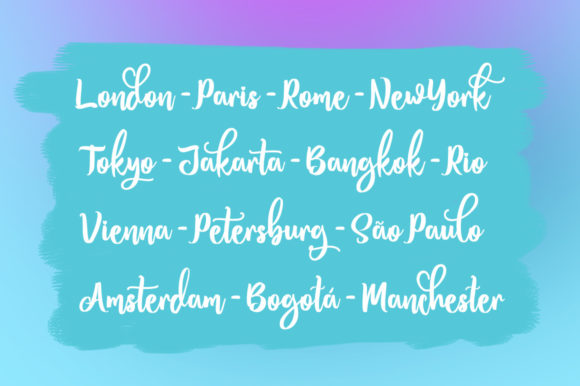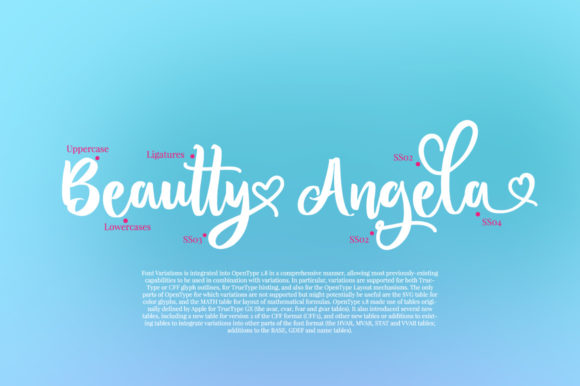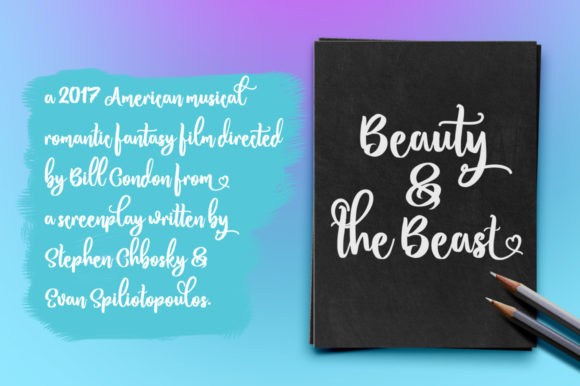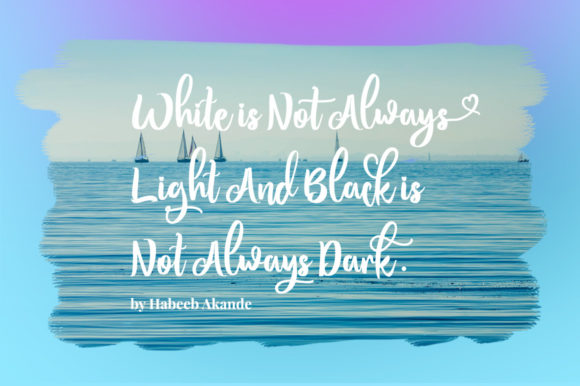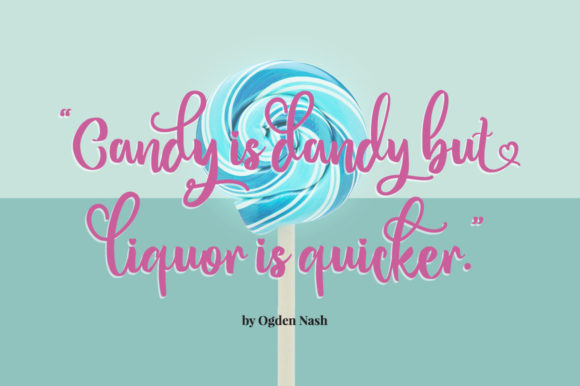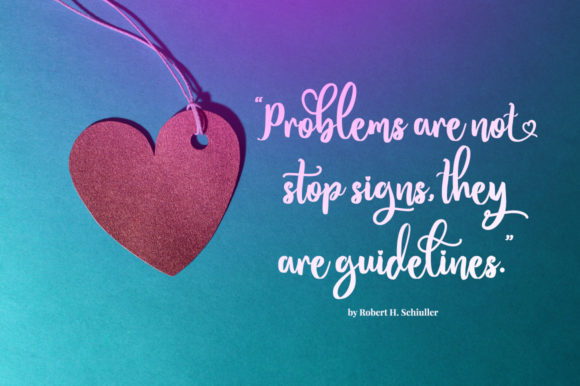
The Sweet Allure of Bitten Amore Font
You know that feeling when you stumble upon a font that makes you swoon? For me, it was the moment I laid eyes on the Bitten Amore Font. Its soft, hand-lettered charm instantly captured my heart, and I knew I had to learn more about this lovable font.
Bitten Amore Font is a beautiful, sweet handwritten font designed to evoke an authentic feel that’s perfect for creating gorgeous wedding invitations, stunning stationary art, eye-catching social media posts, and adorable greeting cards. As a designer, I can appreciate the value of having a versatile font like Bitten Amore Font in my toolkit – it’s the perfect addition to any project that needs a touch of whimsy and romance.
Bitten Amore Font Key Features
• Font Family: Bitten Amore Font is a unique, handwritten script font.
• Unique Characteristics: Bitten Amore Font features a beautiful, handwritten feel with intricate details and subtle flair.
Bitten Amore Font Review
I recently had the chance to work with the Bitten Amore font, and I’m sharing my honest thoughts on its strengths and weaknesses. ✨
• ✨ Elegant and modern aesthetic: Bitten Amore font exudes a sophisticated vibe, making it perfect for high-end branding and design projects.
• ✨ Excellent for text-based content: The font’s clear and legible design makes it an excellent choice for lengthy text-based content, such as articles and blog posts.
• ✨ Good for logotypes and headings: The font’s stylish and modern design makes it suitable for creating eye-catching logotypes and headings.
• ⚠️ Limited language support: The font may not be suitable for languages that require complex scripts or characters, as it may not support them fully.
• ⚠️ May not be suitable for small text sizes: Due to its elegant design, the font may not be readable at very small text sizes, making it less suitable for web design or mobile apps.
• ⚠️ Can be overwhelming in large blocks of text: The font’s modern design may be too bold and overwhelming when used in large blocks of text, making it less suitable for long-form content.
Overall, I think the Bitten Amore font is a great addition to any designer’s toolkit, but it’s essential to consider its limitations when choosing it for a project. With the right use case, it can elevate your design to the next level.
Bitten Amore Font is suitable for:
• Wedding invitations and stationery.
• Food and beverage branding.
• Travel and tourism marketing.
• Romantic and whimsical designs.